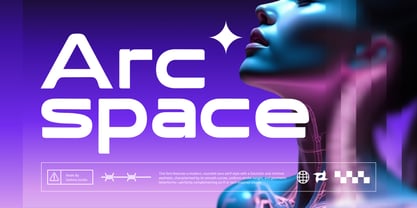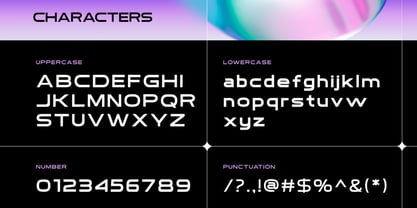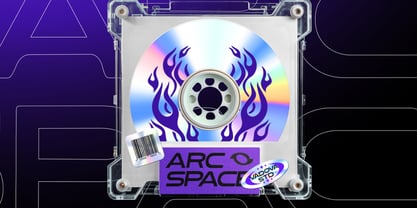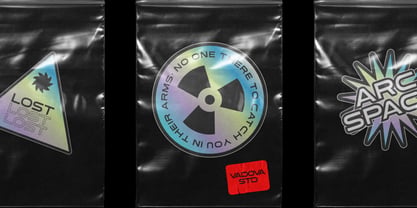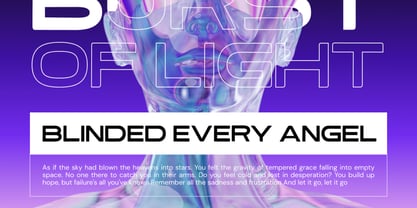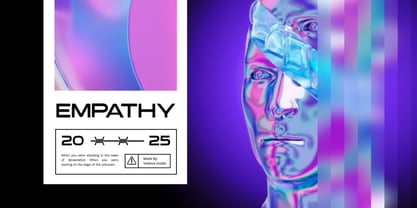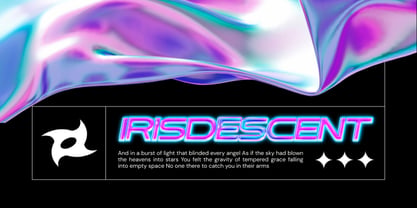
Arc Space
Arc Space is a futuristic rounded sans serif font that captures the spirit of tomorrow through bold geometry and fluid simplicity. It features a sleek, modern design with uniform stroke widths, perfectly smooth curves, and minimalist letterforms, creating a clean yet dynamic visual experience. This typeface is meticulously crafted to suit a wide range of sci-fi, tech, gaming, and digital design projects. Included in this file are uppercase and lowercase characters, numbers, punctuation marks, and multilingual support providing everything you need for complete typographic control. Designed with usability and aesthetics in mind, Arc Space bridges the gap between retro-futurism and contemporary digital branding. Whether you're designing a product interface, movie title, music album cover, cyber-themed poster, or NFT promotional art, Arc Space ensures a bold, intelligent presence in any medium.